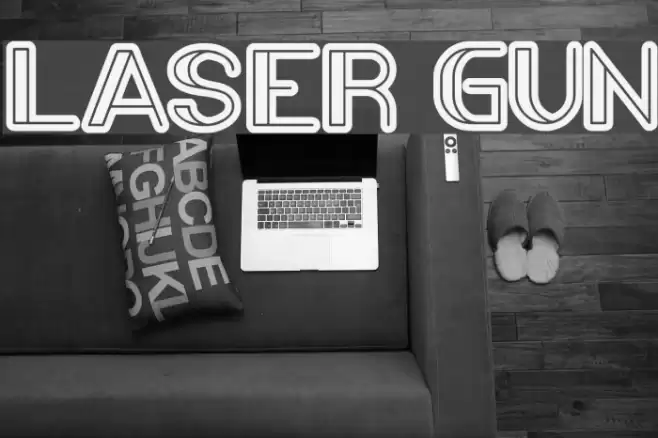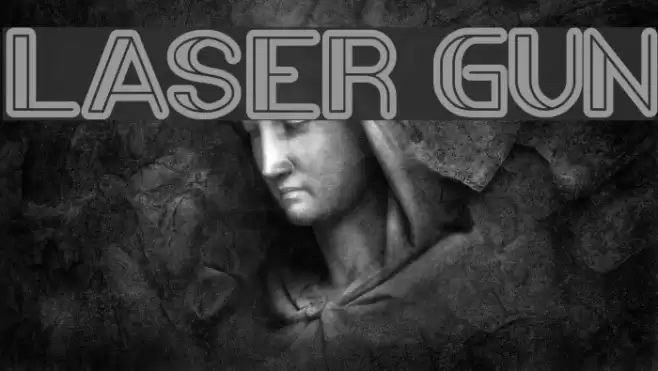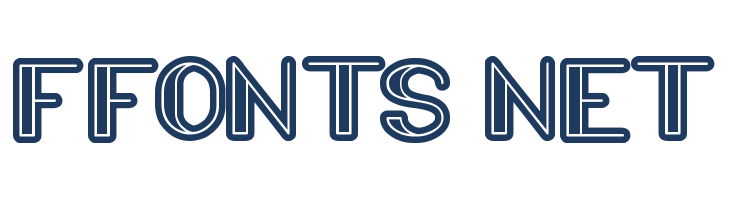
LASER GUN Font
This font features a bold, futuristic design with a double-line outline that gives it a three-dimensional effect. The characters are uppercase only, with a geometric and angular style that suggests a modern, tech-inspired aesthetic. The clean lines and consistent stroke width contribute to a sense of precision and clarity, making it ideal for attention-grabbing headlines or logos. The spacing between characters is normal, ensuring readability while maintaining the font's distinct visual impact. Its unique style is reminiscent of digital or sci-fi themes, making it suitable for projects that require a contemporary and innovative look.
Proposed ProjectsIdeal for tech-related branding, sci-fi movie posters, video game titles, and modern event flyers.